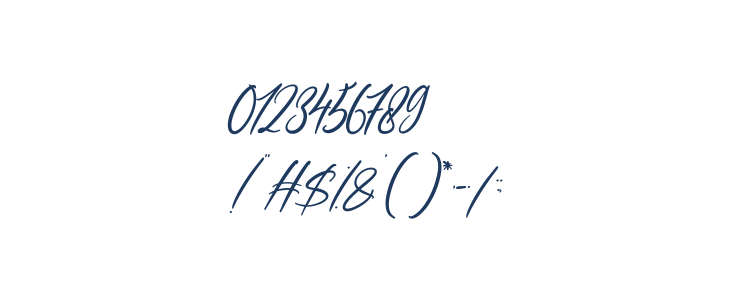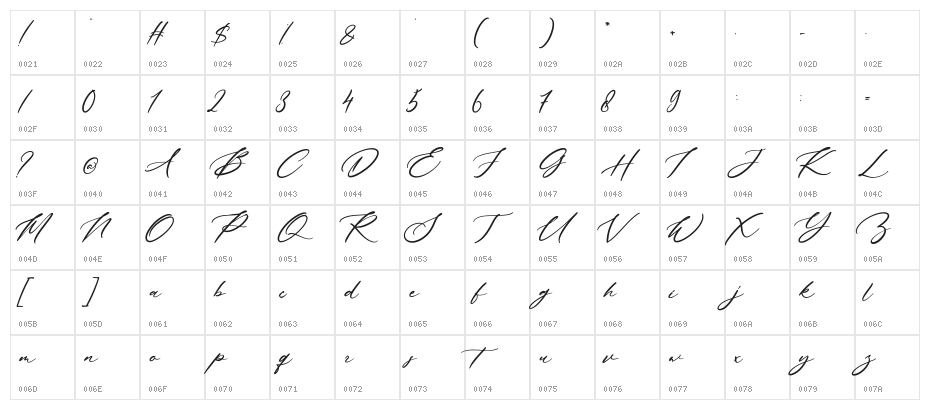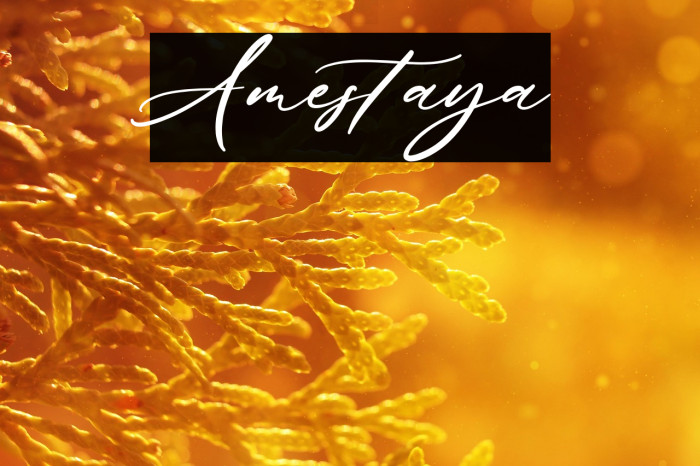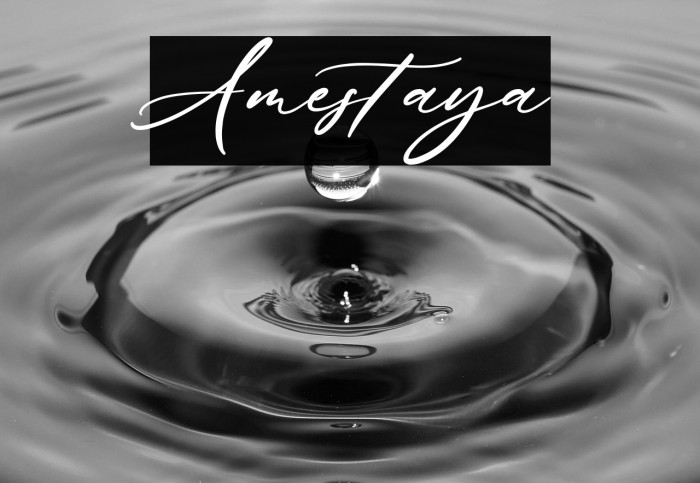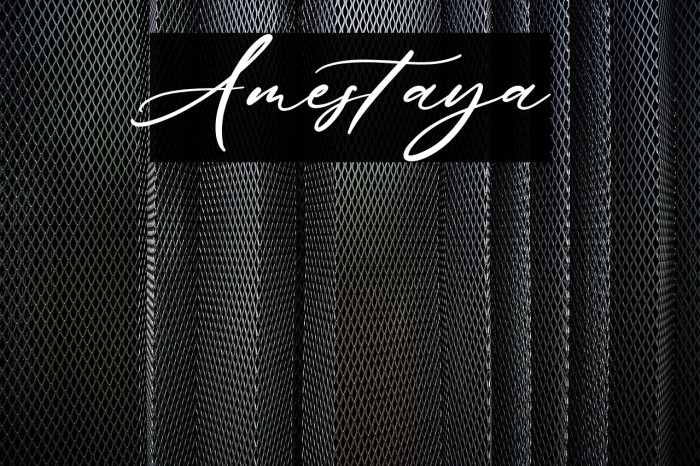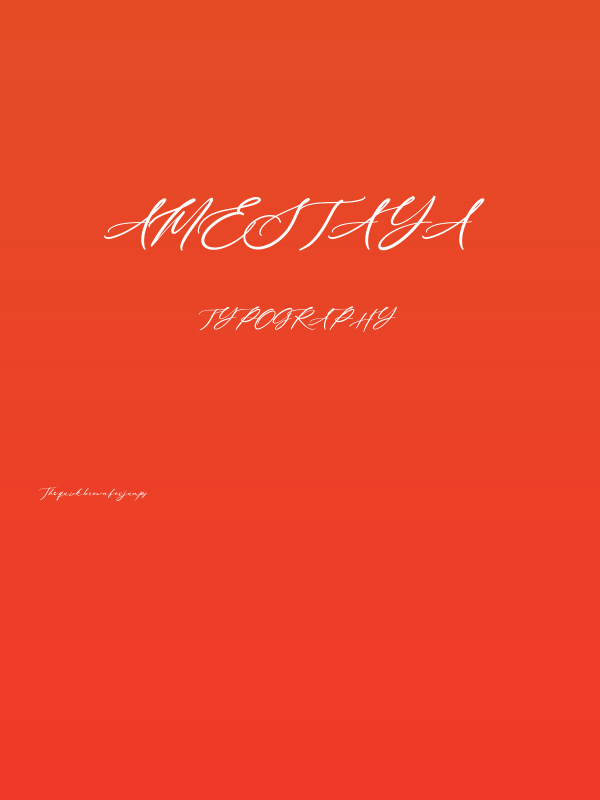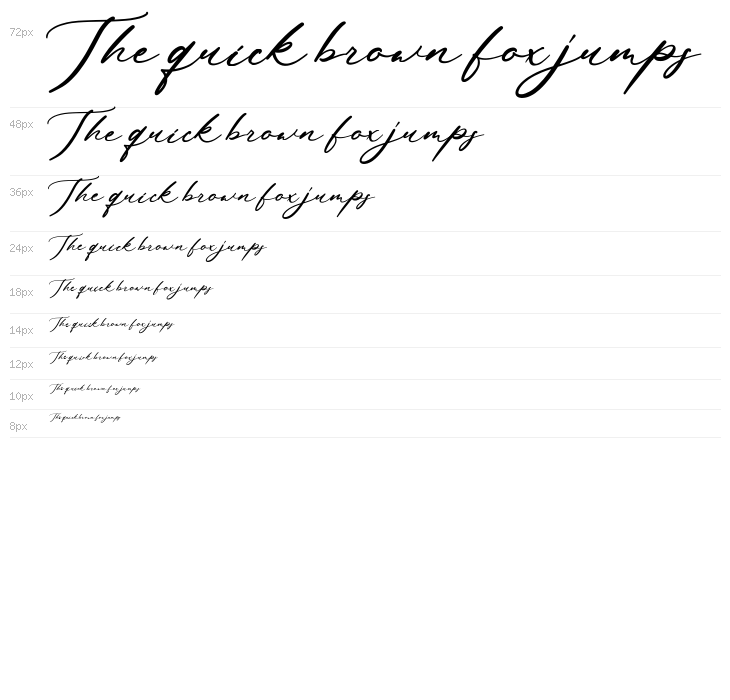
Amestaya Font
Amestaya Description
This elegant script font features fluid, cursive strokes that mimic the natural flow of handwriting. Each character is intricately designed with smooth, sweeping lines that convey a sense of sophistication and grace. The uppercase letters are slightly more elaborate, with decorative flourishes that add a touch of flair, while the lowercase letters maintain a consistent, flowing style. The numerals and special characters are seamlessly integrated, maintaining the overall aesthetic of the font. This font is perfect for projects that require a personal, artistic touch, such as invitations, greeting cards, or branding materials.